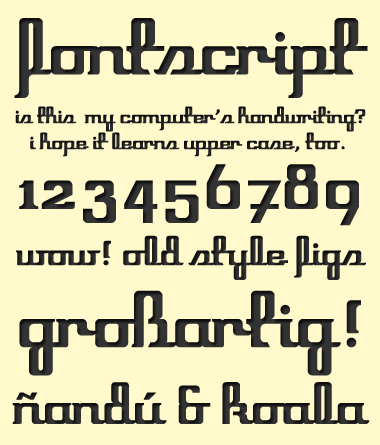
very stylish with a retro feel. nice job :)
Excellent cayo.
Very nice.
nip&aph thx, the creative streak is hitting hard lately. it's flowing around FS & it's very contagious.
Looking good cayo. The creative spark is bursting into flames :-)
wow your on a roll, this looks amazing!
¡Brillante!
Can´t wait to see the Uppercase...This is really "großartig" ;-)
Beautiful! Nice sample:). Very well done!
But who wants to quit? I still have to get one more hit. err. glyph. actually 26 plus accents!
Sam, I can´t wait either!
Well I just had to do the uc in order to get some rest (to my impatient mind). So I had my fix for the time being and now I need to sleep a little bit.
Hope the uc is up for the challenge.
I'll do a sample when I wake up...
oh, yes. you nailed the uc bro. very very nice.
The uppercase are well worth the wait. Way to go, cayo!:)
Nice upper-case! and lower-case. It's an awesome font. Great job, my friend!
You sure give good u/c :-)
Comment by cayo 22nd august 2009
Thx guys for encouraging me to improve it.
After checking out the outcome of the sample, I thought I might add a little detail to the S
I feel the next step should be to work on the ligatures.
Boy, this is going to be fun!
Comment by cayo 22nd august 2009
Congratulations! FontStruct Staff have deemed your FontStruction worthy of special mention. “FontScript” is now a Top Pick.
Comment by Stephen Coles (Stewf) 25th august 2009
:) This is quite a surprise!
Nice to see you around, Stewf.
Thx for the pink dot.
I'm doing my research on possible ligatures for it. So far, the o+s is a must! I hope they get your aproval, too.
As everybody's, of course ;)
Comment by cayo 25th august 2009
Excuse me. But um how do you make those pictures that are your font like the first comment of yours Cayo?
Comment by Electricgator 25th august 2009
They are uploaded pictures I did with the downloaded font. It's just that they use the same color as the background, therefore they seem like posted text.
In case you wonder how it is done...
First you must download the font and put the ttf file in your System's or User's Fonts Folder. Then use Photoshop (or Gimp which is free to use) and create a new file that is 380 px wide (the widest available for image posting in FS) and 600+ px high (this depends on how long the text will be).
Use the type tool an be imaginative.
Save as jpg gif or png file, upload it & presto!
Comment by cayo 25th august 2009
Okay thank you Cayo that is very helpful. :) have you looked at my fonts?
Comment by Electricgator 26th august 2009
:O amazing!
Comment by jmarquez 26th august 2009
Bravo! Je suis muet d'admiration. D'ailleurs je me tais.
Comment by clem86 26th august 2009
@Electrigator you're welcome & yes.
@jmarquez :) thanks
@clem86 merci, mais je ne parle pas françois ;)
Comment by cayo 27th august 2009
This is straight up delightful! Zoomed in real big, I see all the care you took on the inner curves, like using the smaller rounded corners, or sometimes none at all. Spectacular work!
Comment by nemoorange 27th august 2009
Very flattering, thanks for noticing :)
Comment by cayo 28th august 2009
Very elegant and 60's fashioned. It's strange how the "old" things are today the modern things.
Comment by chavez ravine 3rd september 2009